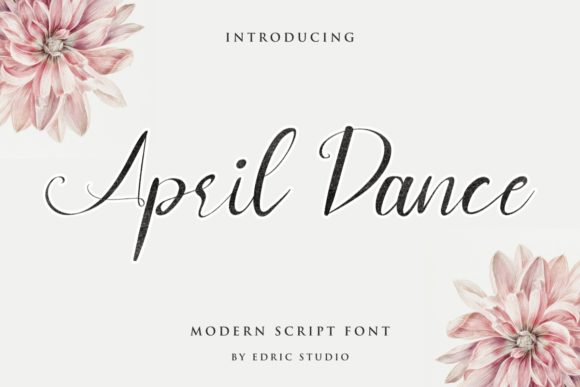
Discover the enchanting April Dance font, a delicate dance of letters that will captivate your designs with its graceful charm. Step into a world of refined artistry where every letter is a brushstroke of elegance, poised to elevate your creations to new heights of sophistication.
April Dance, with its sweeping curves and playful flourishes, is the epitome of feminine chic. Its lines flow effortlessly, creating a visual symphony that evokes a sense of timeless romance. Whether you're crafting a heartfelt wedding invitation, a thoughtful thank-you note, or a captivating logo, this font will lend an air of timeless elegance to your designs.
Imagine your wedding invitations, adorned with the exquisite April Dance font. The letters will waltz across the page, announcing your special day with a touch of whimsy and grace. Your thank-you cards will become cherished keepsakes, each word a testament to your heartfelt gratitude, beautifully expressed in the delicate curves of this enchanting font.
April Dance is not just a font; it's an invitation to let your creativity blossom. Its versatility knows no bounds. From elegant logos that exude professionalism to whimsical greeting cards that spread joy, April Dance will transform your designs into works of art.
Indulge in the exquisite dance of April Dance font and elevate your designs to new heights of sophistication. Let its delicate curves and playful flourishes captivate your audience, creating a lasting impression that will linger in their hearts long after they've closed the page.